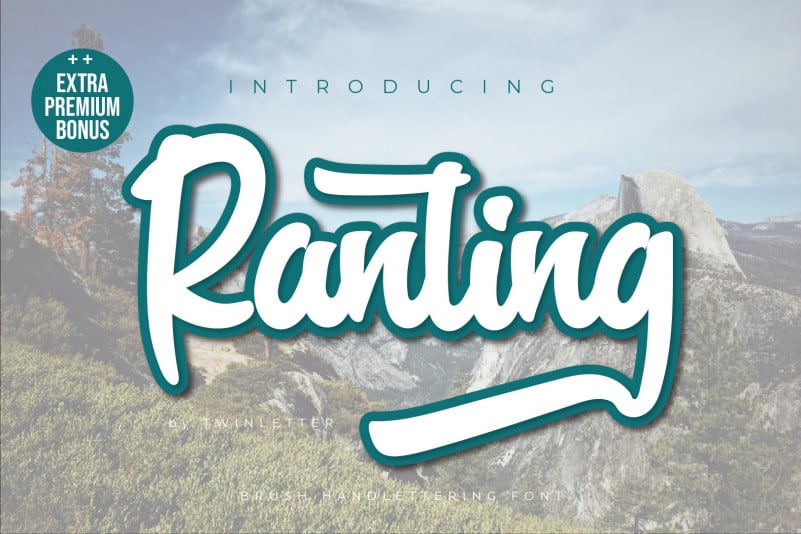
Ranting Script Font
Ranting Script Font is a cute and quirky script font. It will add an incredibly joyful touch to your designs. Add this beautiful display font to each of your creative ideas and notice how it makes them stand out!